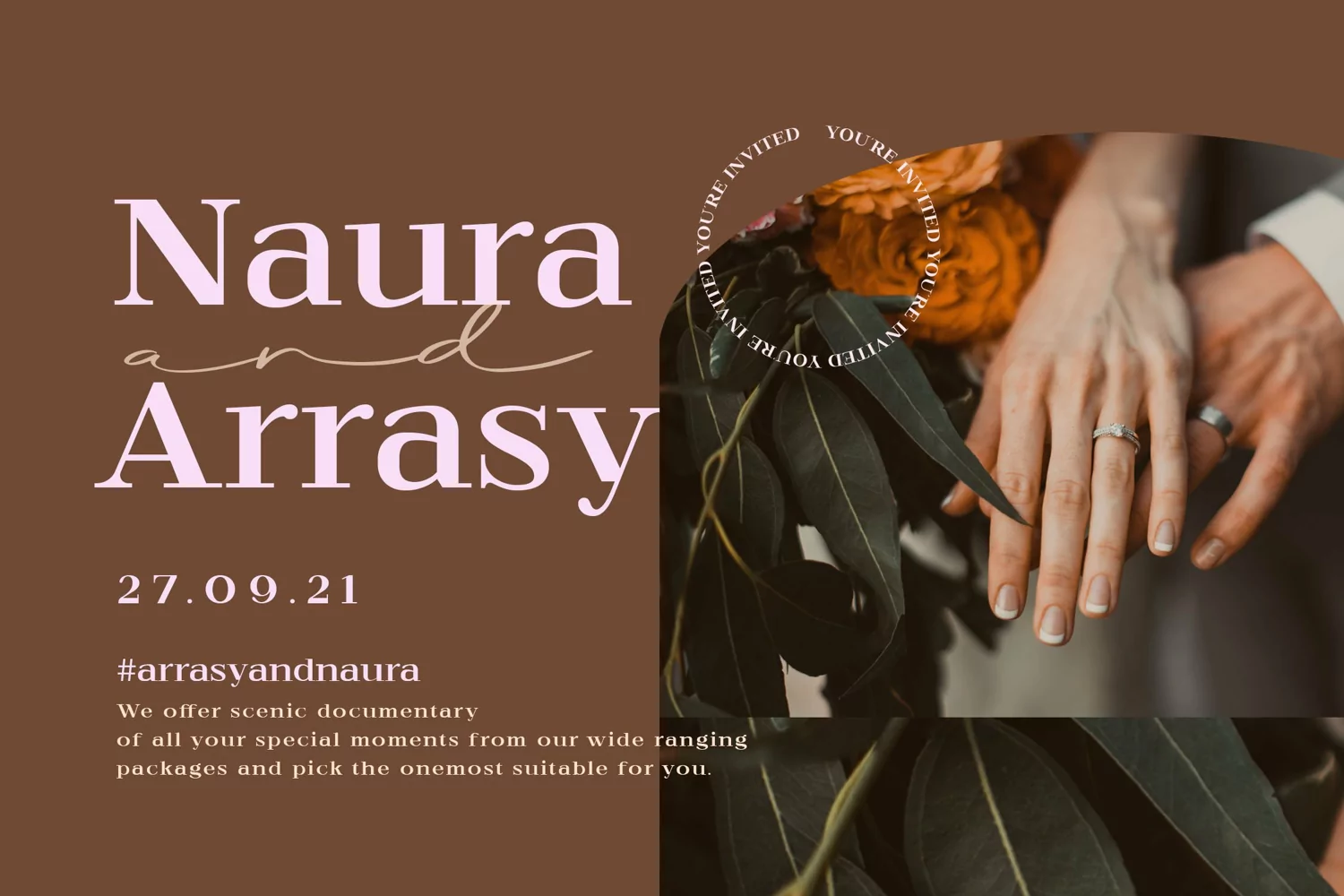
Melgizr - Beauty Fancy Modern Expanded Serif - Fashion Classy Display Font
Melgizr Extended Elegant Serif font is perfect for your up coming projects. Such as luxury logo and branding, classy editorial design, woman magazine, cosmetic brand, fashion promotional, art gallery branding, museum, historical of architectural, boutique branding, stationery design, blog design, modern advertising design, card invitation, art quote, home decor, book/cover title, special events and any more.